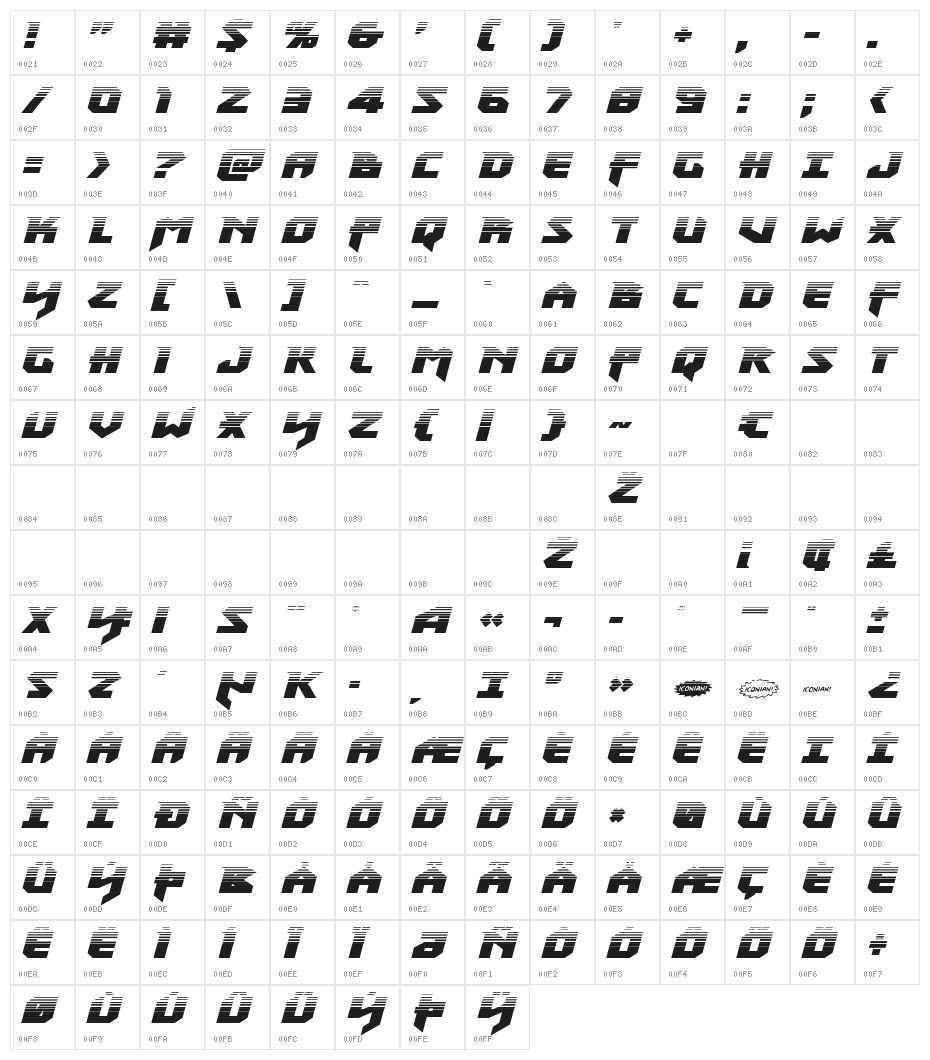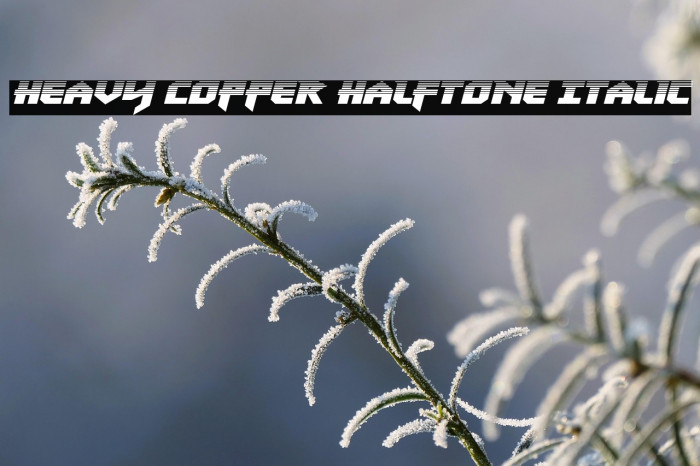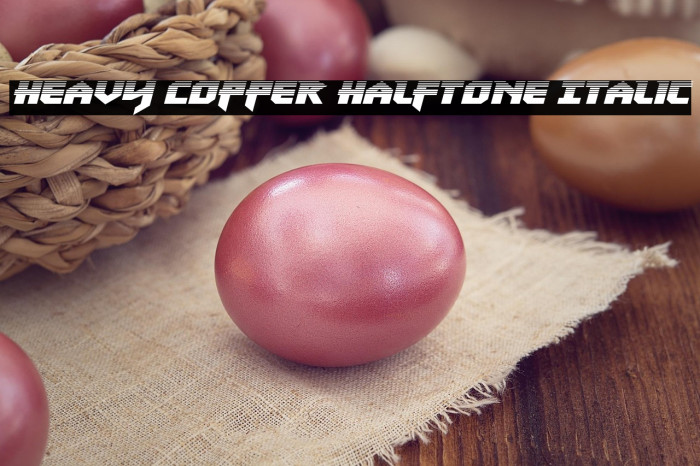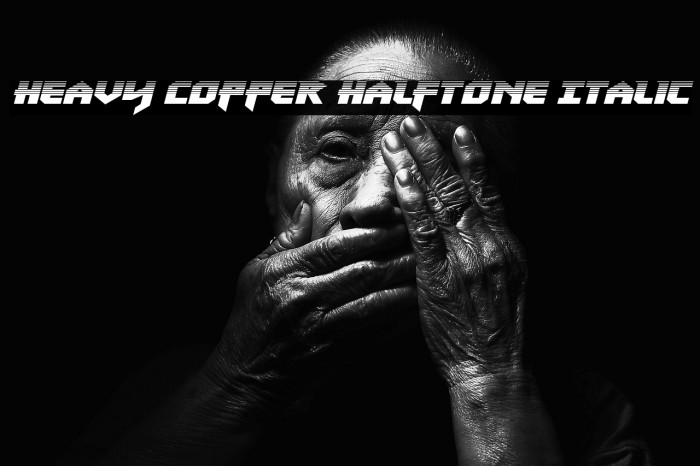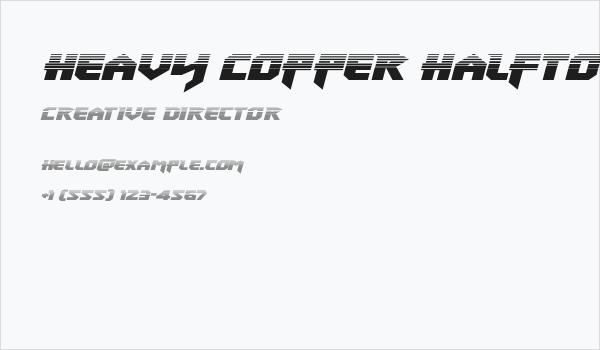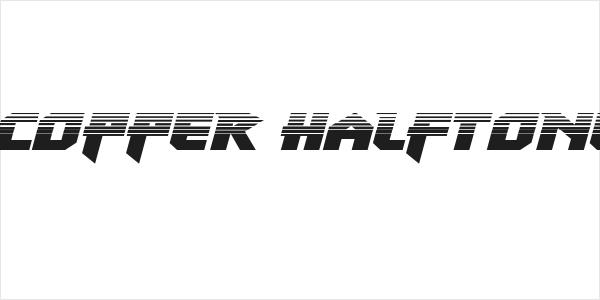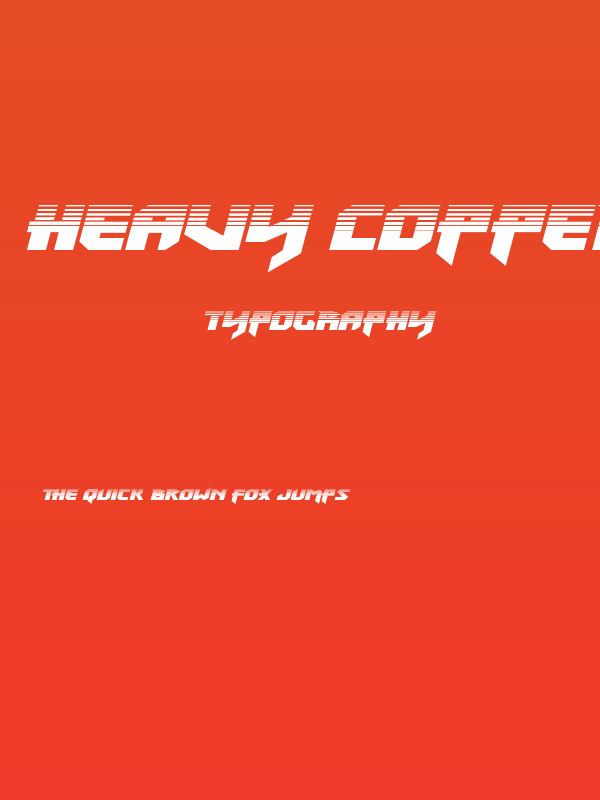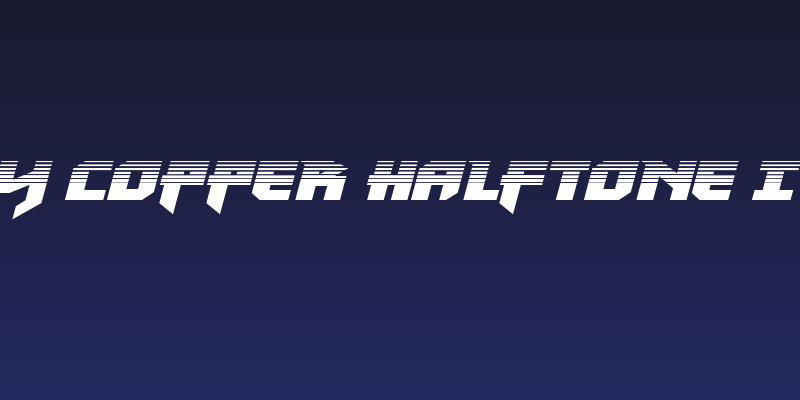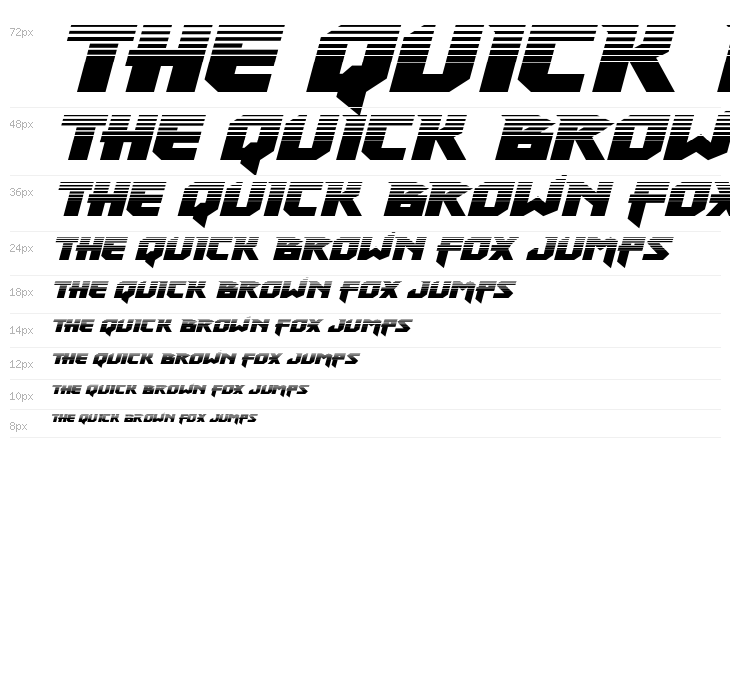
Heavy Copper Halftone Italic Font
Heavy Copper Halftone Italic Description
This font features a bold and dynamic design with a halftone effect that gives it a unique, futuristic appearance. The characters are italicized, adding a sense of motion and speed. The uppercase and lowercase letters maintain a consistent style, with sharp angles and a geometric structure. The numbers and special characters follow the same design principles, ensuring uniformity across all glyphs. The halftone lines create a layered look, enhancing the font's depth and visual interest. This font is ideal for projects that require a modern and edgy aesthetic.